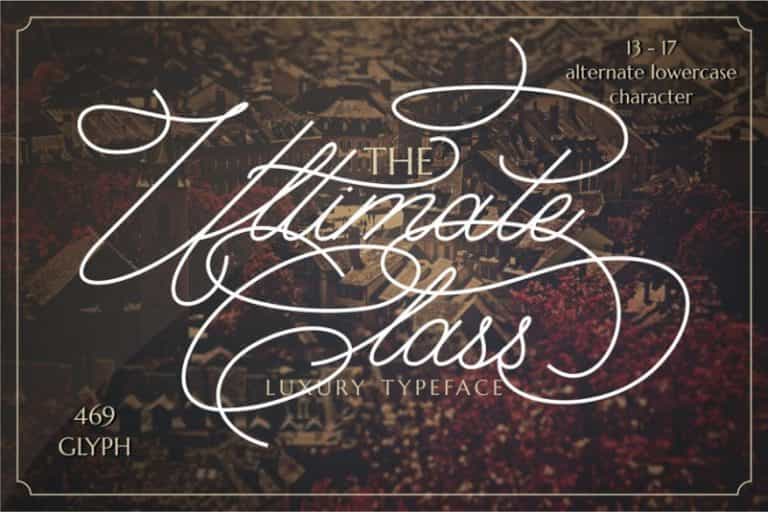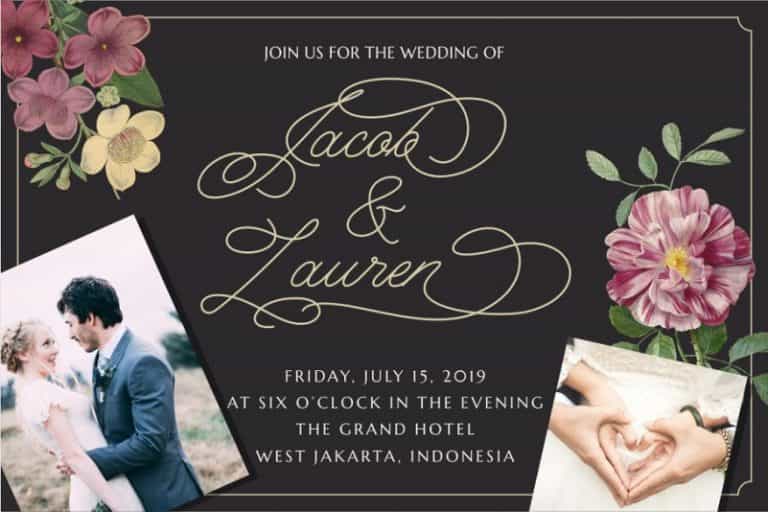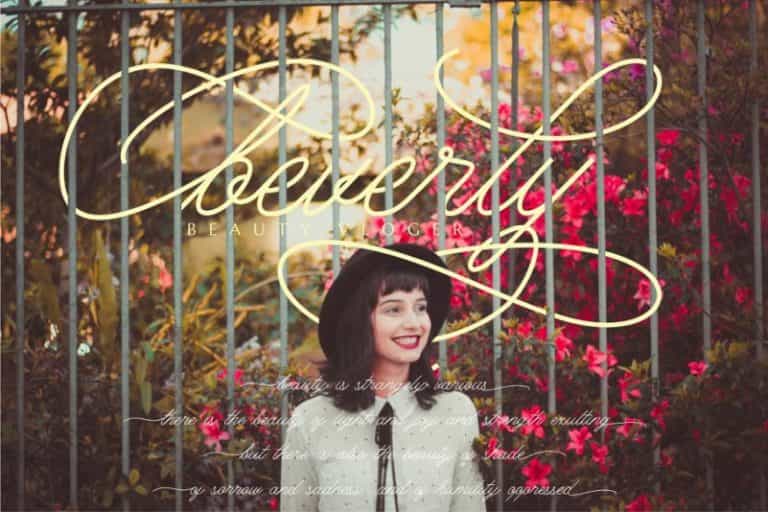
Discover The Ultimate Class Script Font, part of the Calligraphy Handwritten collection—a versatile and unique font perfect for adding a personal touch to your projects. Download it for free and enjoy crafting designs with style, from invitations to social media posts. This font is available exclusively for personal use, giving you the freedom to create without limits. Unlock your creativity with The Ultimate Class Script Font today!
Proudly introduces the new product The Ultimate Class Script Font. A graceful, sophisticated and trendy script typeface. This font also has many beautiful swashes and swirls with 13 –17 alternate characters for lowercase letter. The Ultimate Class is a perfect choice for the signature, quote, branding, wedding invite and card design.